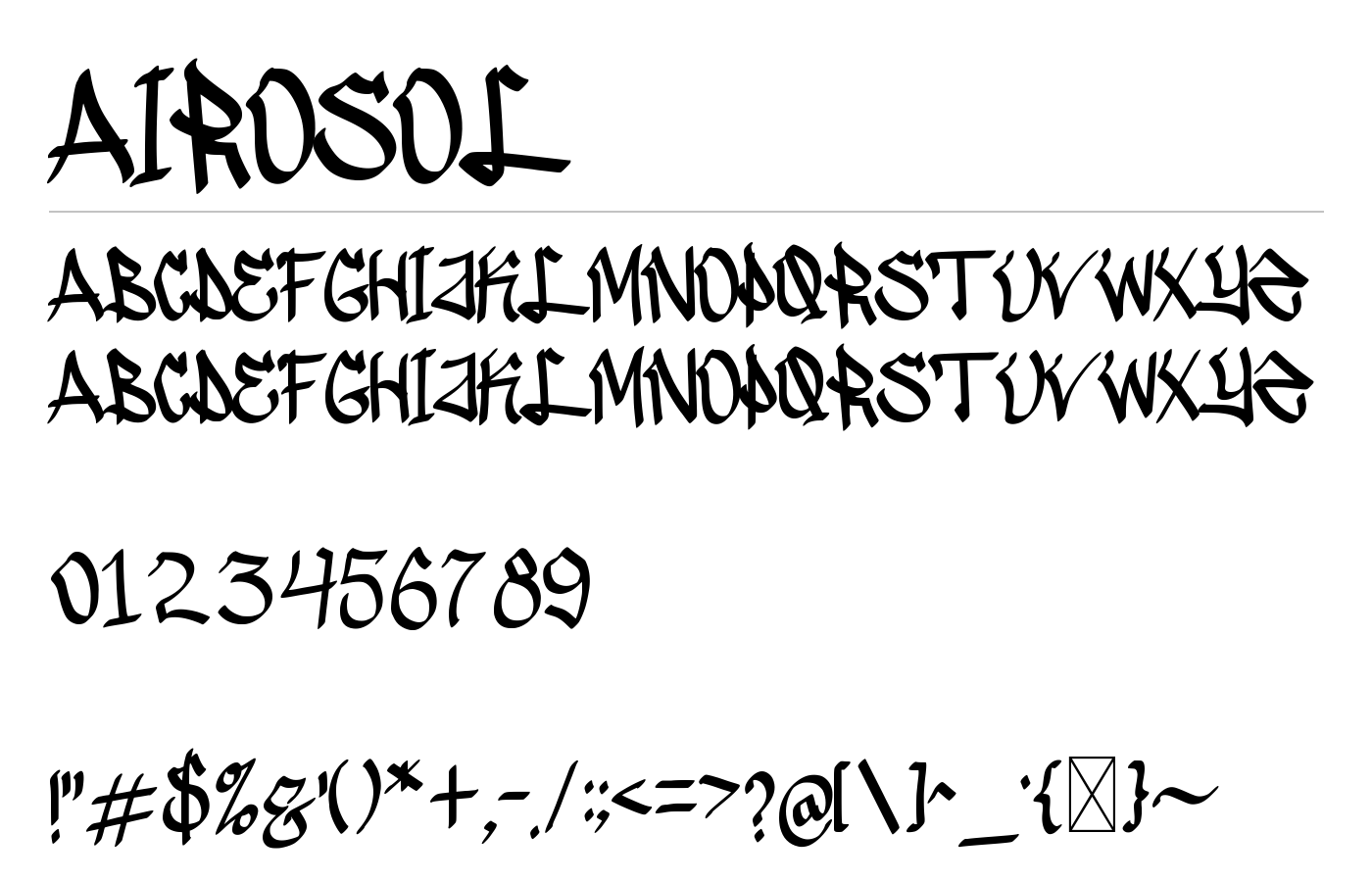
Airosol is a bold, decorative font with a sharp, angular style that gives it a strong and edgy character. Its unique, pointed strokes and irregular shapes evoke a hand-drawn, graffiti-inspired feel, making it perfect for creative designs that want to stand out with a rebellious, urban vibe. This font is ideal for logos, posters, and headlines where a distinctive, energetic presence is needed.
Airosol Font